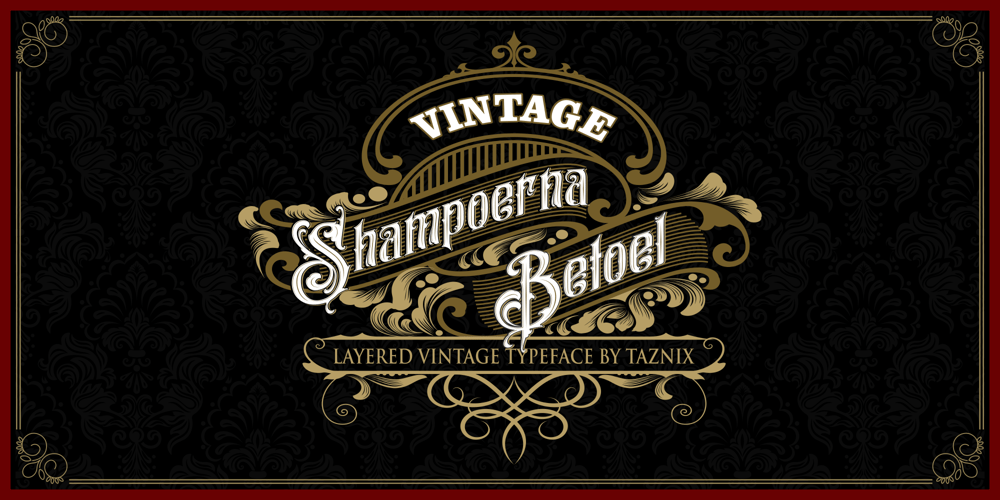
Shampoerna Betoel
Shampoerna Betoel font
Shampoerna Betoel Font Family was designed by Ricky Hartasni and published by Taznix Creative. Shampoerna Betoel contains 4 styles and family package options. Shampoerna Betoel is an elegant and classic blackletter font. Fall in love with its incredibly versatile style and use it to create spectacular designs!Shampoerna Betoel Typeface includes a full set of character A-Z, as well as multi-lingual support, currency figures, numerals, and punctuation.What’s Included : Standard glyphs Ligature Works on PC & Mac Simple installations Accessible in the Adobe Illustrator, Adobe Photoshop, Adobe InDesign, even work on Microsoft Word. PUA Encoded Characters – Fully accessible without additional design software. Fonts include multilingual support for; ä ö ü Ä Ö Ü ß ¿ ¡